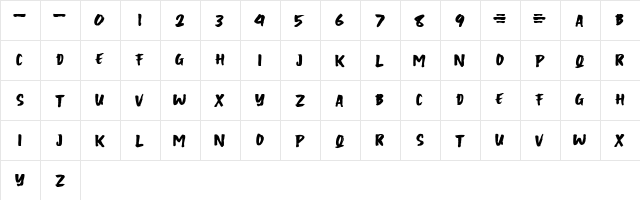
COOLERBRUSH Regular
Design Context for COOLERBRUSH Typeface
COOLERBRUSH flows with the natural rhythm of handwritten lettering, making it ideal for designs that call for warmth and personal expression.
Font Pairing: Combine COOLERBRUSH with a simple geometric sans for maximum contrast — the tension between flowing curves and clean structure is a classic typographic pairing.
Pro Tip: Use COOLERBRUSH for short runs of text — names, titles, or taglines. Extended body copy in script faces tires the eye quickly.